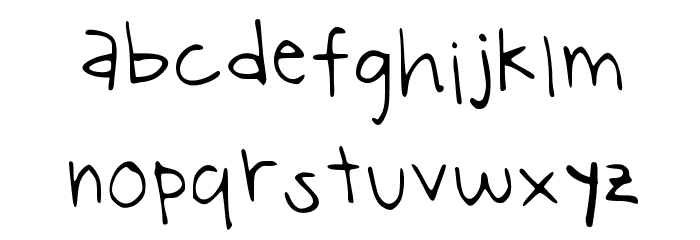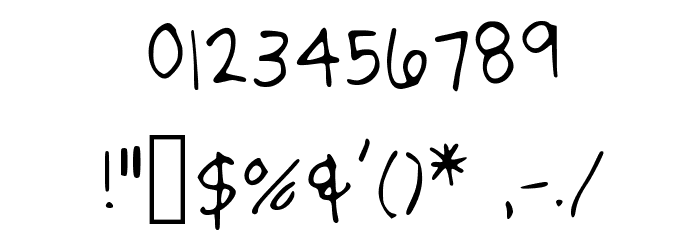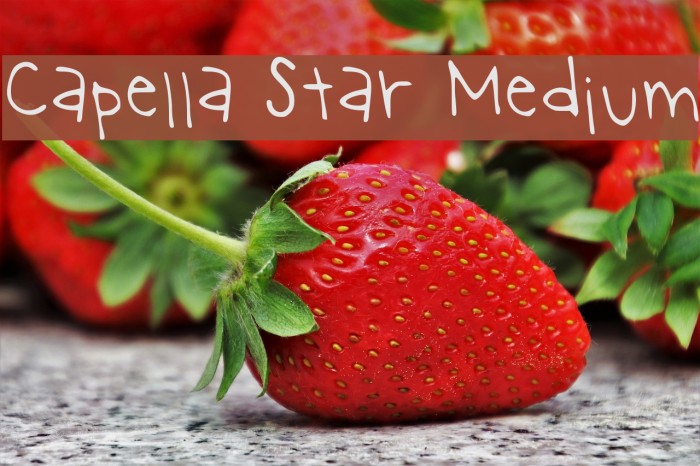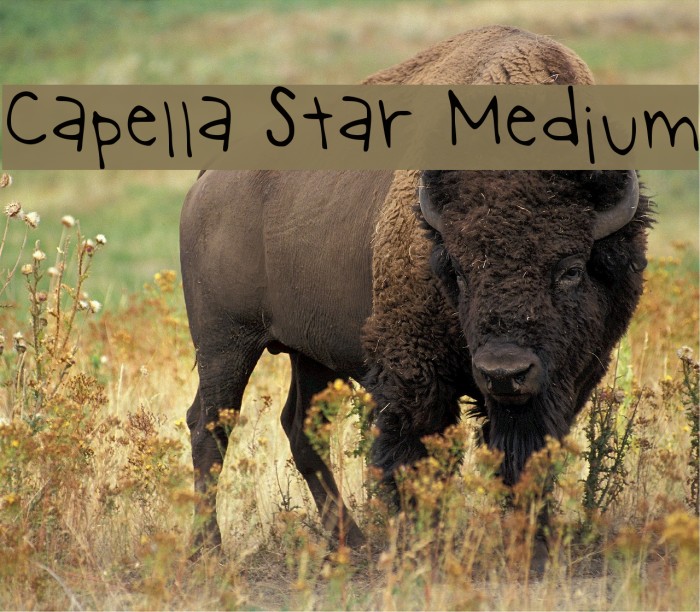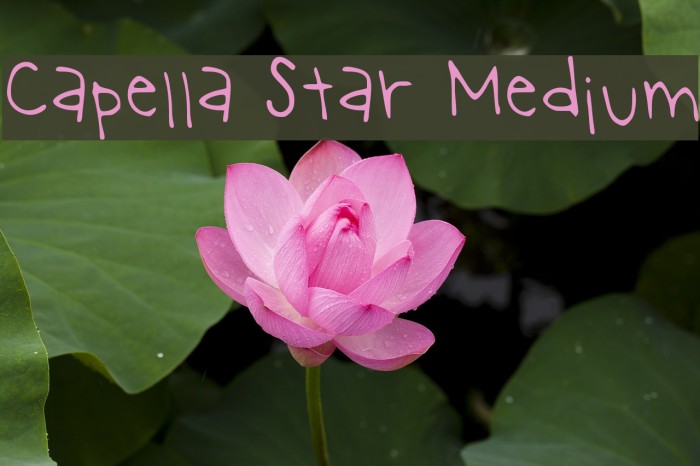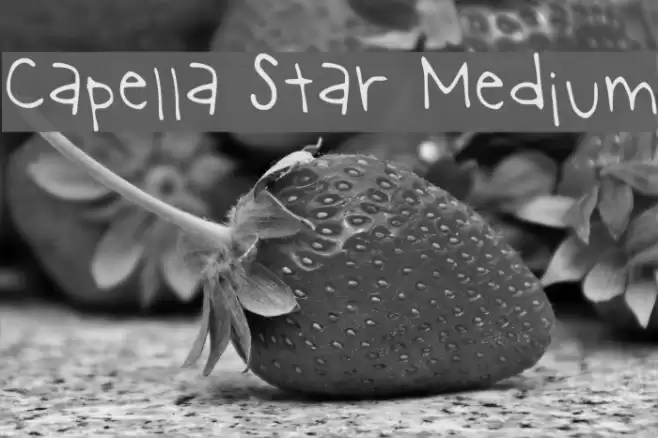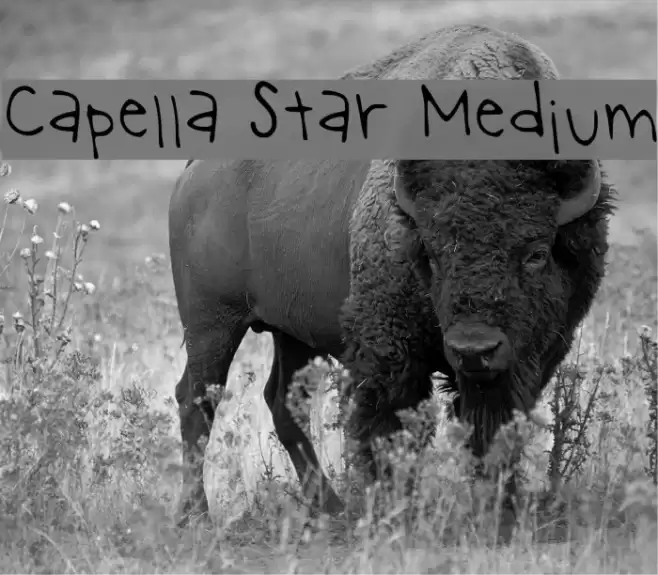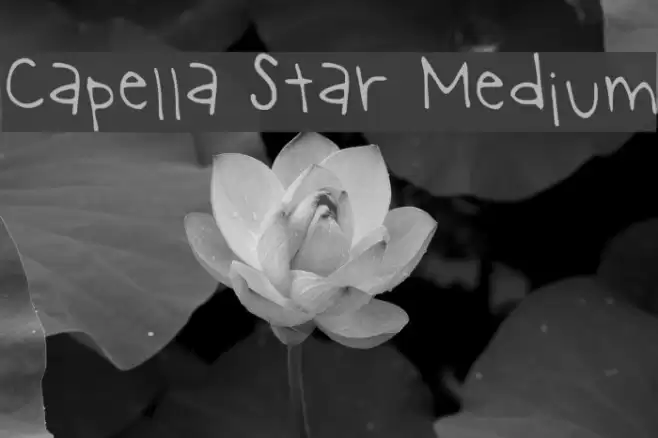
Capella Star Medium Font
This font exudes a playful and informal style, characterized by its handwritten appearance. The letters are slightly irregular, adding a personal and casual touch. The strokes are consistent in width, giving it a uniform look despite its informal nature. The characters are well-spaced, ensuring readability while maintaining a relaxed vibe. The numerals and special characters follow the same handwritten style, making them blend seamlessly with the alphabet. This font is ideal for projects that require a friendly and approachable feel.
A playful, handwritten font with a casual and informal style.
- Font: Capella Star Medium
- Proposed Projects: Ideal for greeting cards, personal blogs, children's books, and informal branding.
- Category: Handwritten
- Overall Style: Casual
- Use Case: Headlines, Informal text, Creative projects